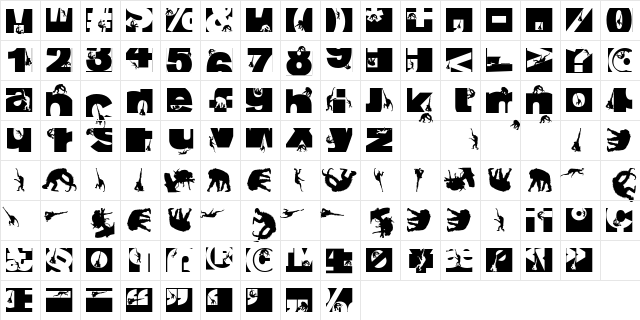
TypoApish Regular
Design Context for TypoApish Typeface
TypoApish is a composed and adaptable typeface that performs quietly and consistently across a wide range of design contexts.